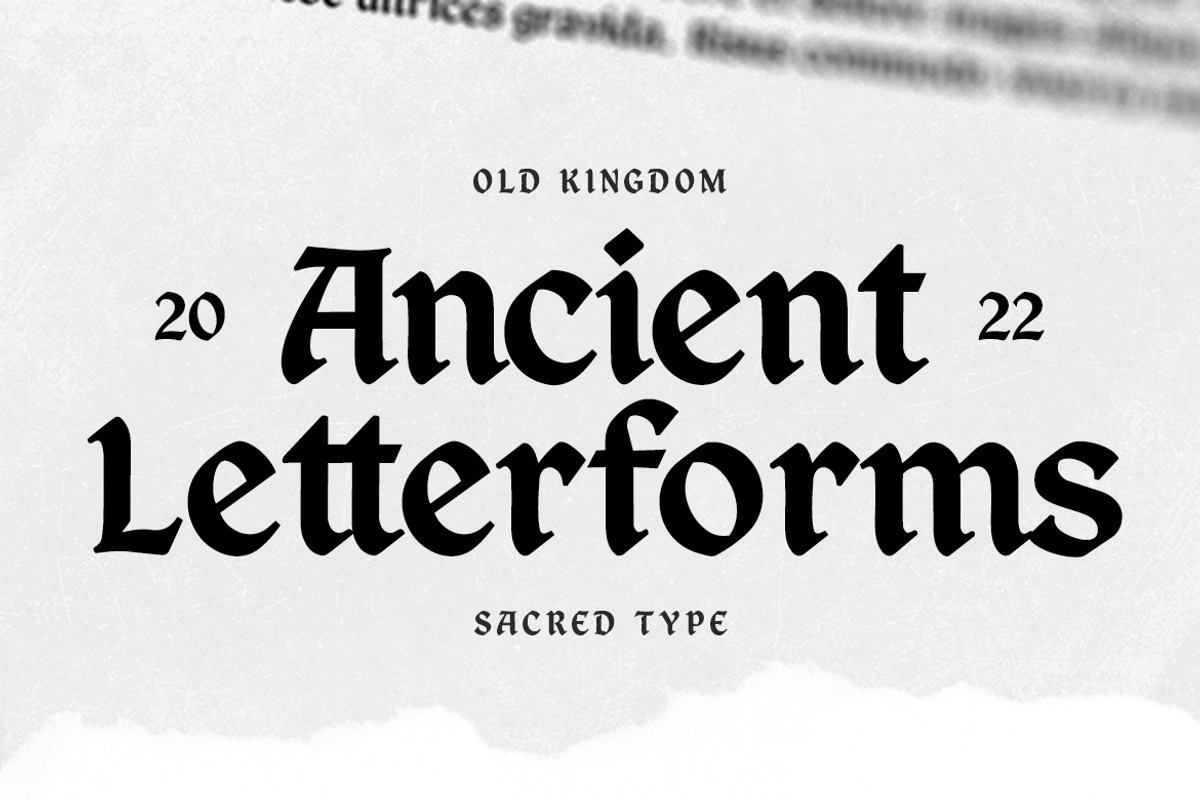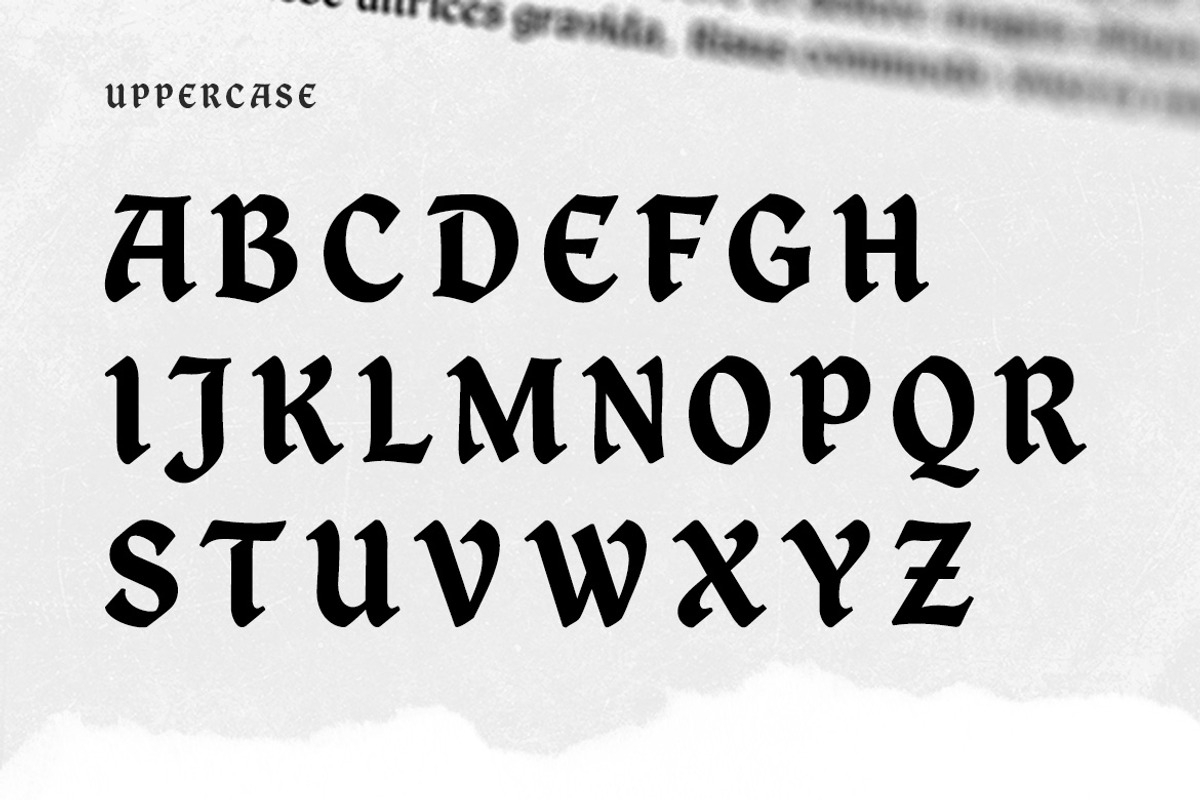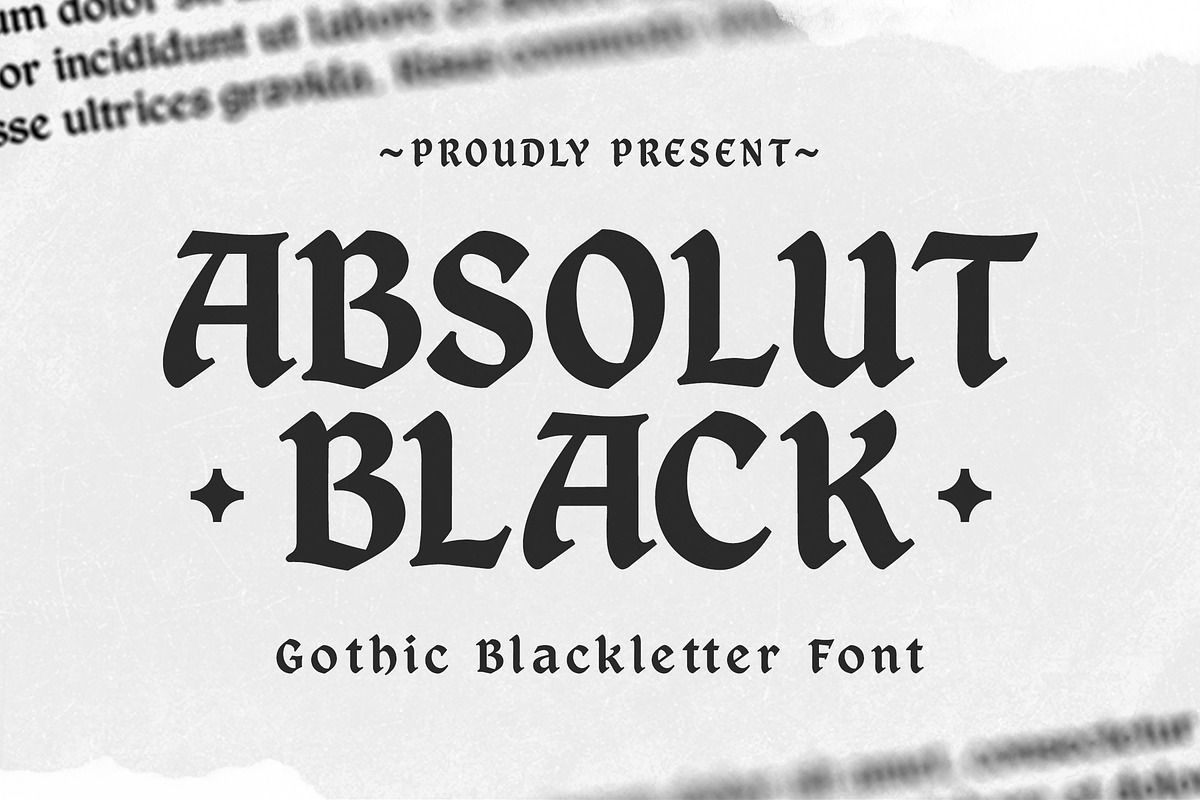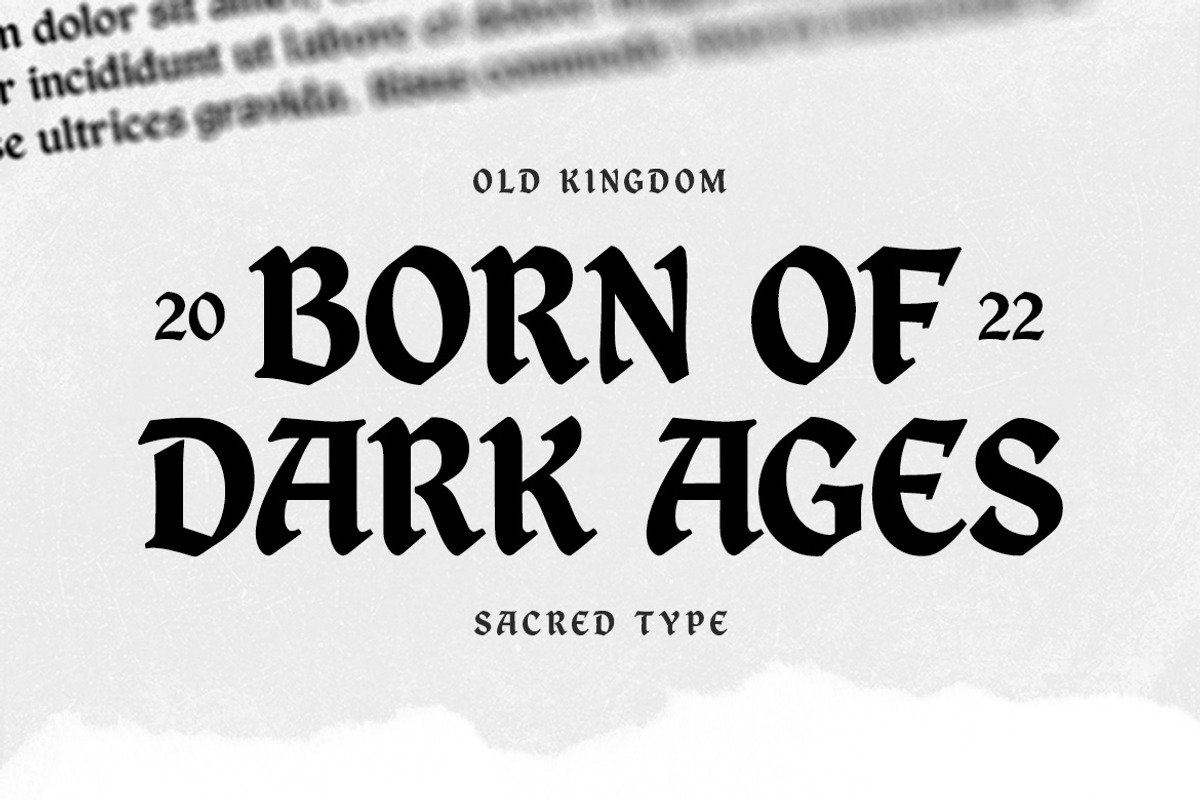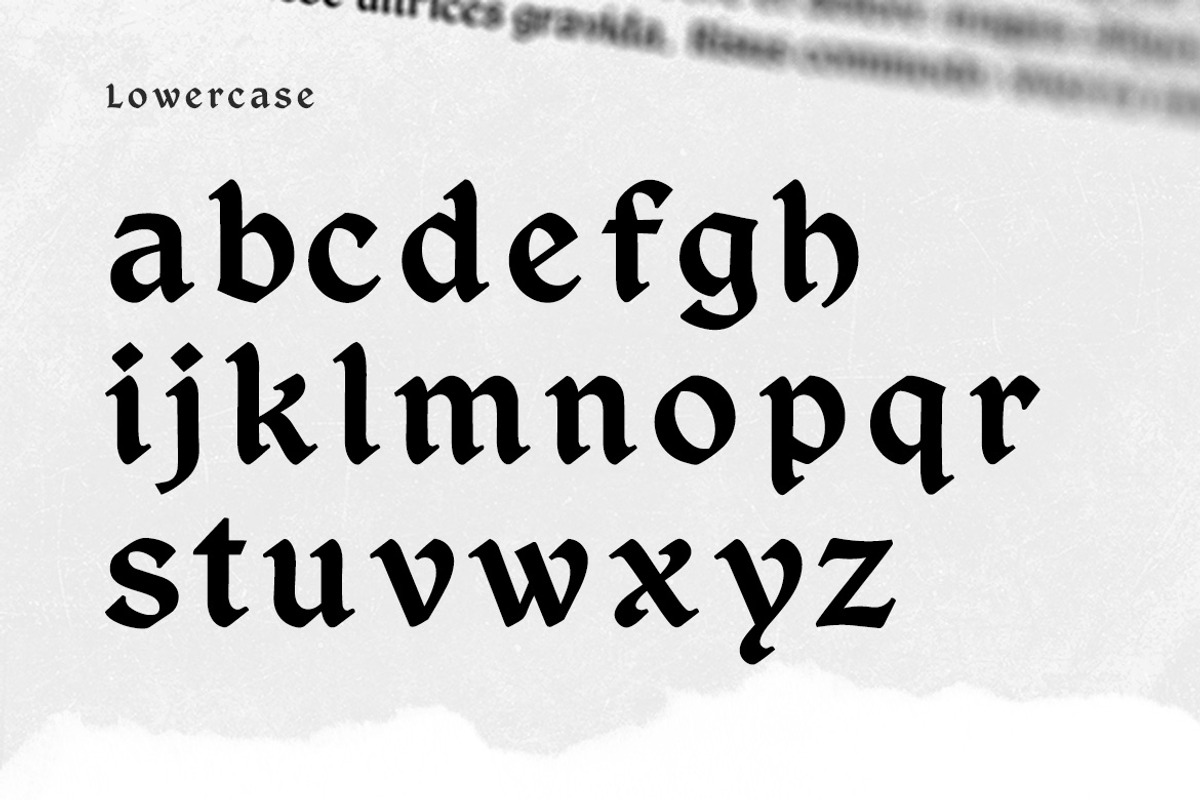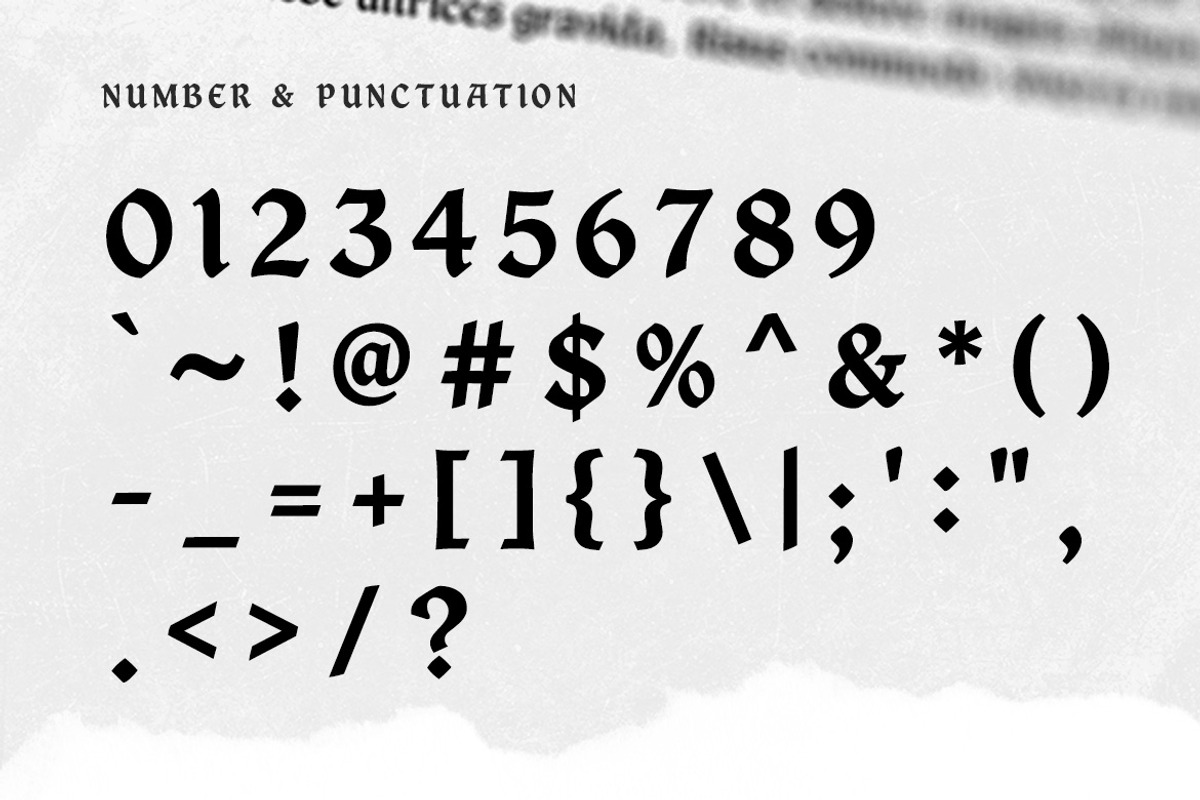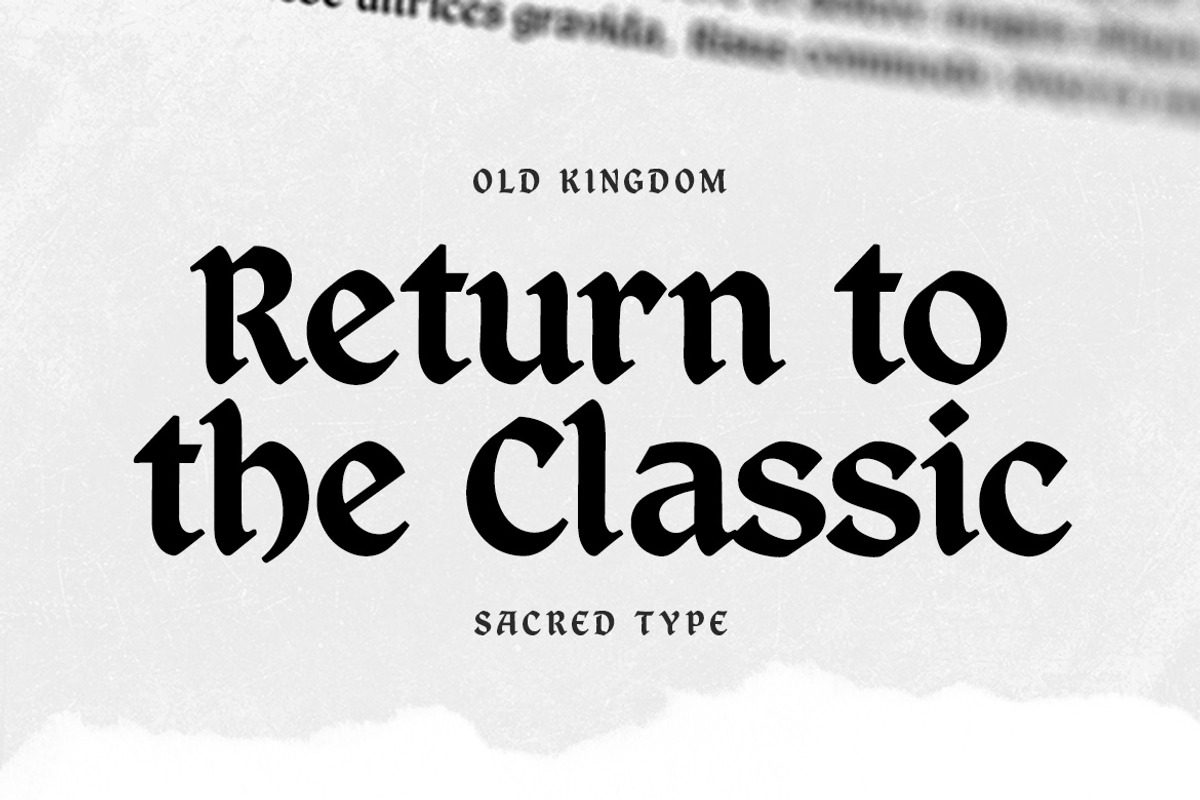
Absolut Black – Gothic Blackletter
Absolut Black is a striking gothic blackletter font that channels medieval elegance with a bold modern edge, featuring sharp angular forms, dramatic contrast, and classic broken letter structures that evoke heritage, authority, and timeless sophistication. Crafted for powerful visual impact, this typeface is perfect for branding, logos, editorial headlines, tattoo designs, posters, and premium packaging that seek a dark, historical, and commanding presence while still feeling refined and contemporary